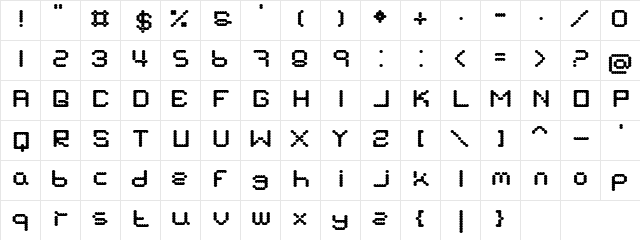
Swanny Real Regular
Design Context for Swanny Real Typeface
Swanny Real is a composed and adaptable typeface that performs quietly and consistently across a wide range of design contexts.